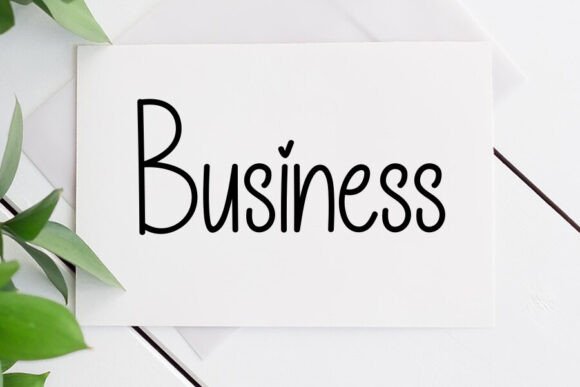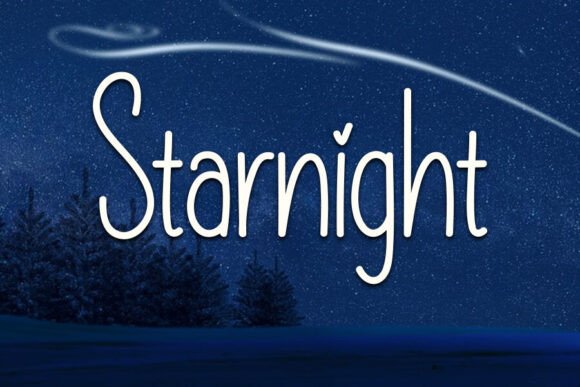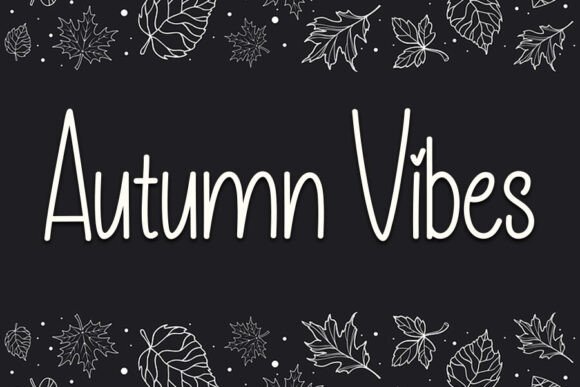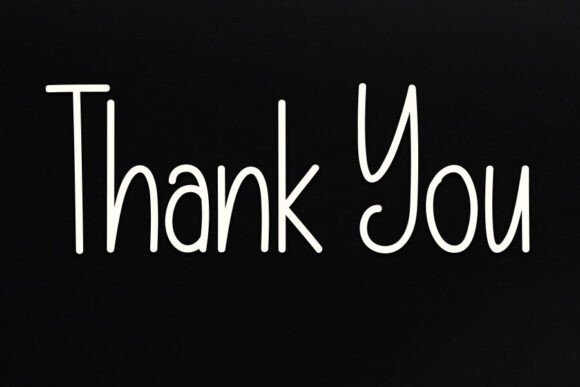
The Beauty of Typography: Why Beautiful Font is a Timeless Choice for Designers and Crafters
When it comes to creating visually stunning designs, typography plays a crucial role. A beautiful font can elevate your project from ordinary to extraordinary, making it a lasting impression on your audience. In this article, we’ll explore the charm of the Beautiful Font, a lovely and timeless handwritten font that’s perfect for designers and crafters looking to add a touch of elegance to their work.
What Makes Beautiful Font So Special?
Beautiful Font is a unique and exquisite handwritten font that’s designed to make your designs come alive. Every letter has a distinct and beautiful touch, which sets it apart from other fonts. Its timeless quality ensures that your designs will remain stylish and relevant for years to come. Whether you’re creating eye-catching logos, branding materials, or inspirational quotes, Beautiful Font is the perfect choice.
The Benefits of Using Beautiful Font
So, why should you choose Beautiful Font for your design projects? Here are just a few benefits:
- Elegance and Sophistication: Beautiful Font exudes elegance and sophistication, making it perfect for high-end branding and luxury designs.
- Uniqueness: Each letter has a unique touch, ensuring that your designs stand out from the crowd.
- Timelessness: Beautiful Font’s classic design ensures that your projects will remain stylish for years to come.
- Versatility: This font is perfect for a wide range of design projects, from logos and branding to quotes and social media graphics.
How to Use Beautiful Font in Your Design Projects
Beautiful Font is incredibly versatile and can be used in a variety of design projects. Here are a few ideas to get you started:
- Logos and Branding: Create a lasting impression with a beautiful logo that showcases your brand’s personality.
- Quotes and Inspirational Graphics: Add a touch of elegance to your quotes and inspirational graphics, making them perfect for social media sharing.
- Stationery and Invitations: Elevate your stationery and invitations with a beautiful, handwritten font that’s sure to impress.
- Web Design: Use Beautiful Font to create stunning website headers, titles, and other design elements that will make your website stand out.
Tips for Getting the Most Out of Beautiful Font
To get the most out of Beautiful Font, here are a few tips to keep in mind:
- Experiment with Colors: Beautiful Font looks stunning in a variety of colors, so don’t be afraid to experiment and find the perfect hue for your design.
- Mix and Match: Combine Beautiful Font with other fonts to create a unique and visually appealing design.
- Pay Attention to Spacing: Make sure to adjust the spacing between letters and lines to create a clean and elegant design.
Beautiful Font is a timeless and elegant handwritten font that’s perfect for designers and crafters looking to add a touch of sophistication to their work. With its unique and beautiful touch, this font is sure to make your designs come alive. Whether you’re creating logos, branding materials, or inspirational quotes, Beautiful Font is the perfect choice. So why not give it a try and see the beauty of typography for yourself?